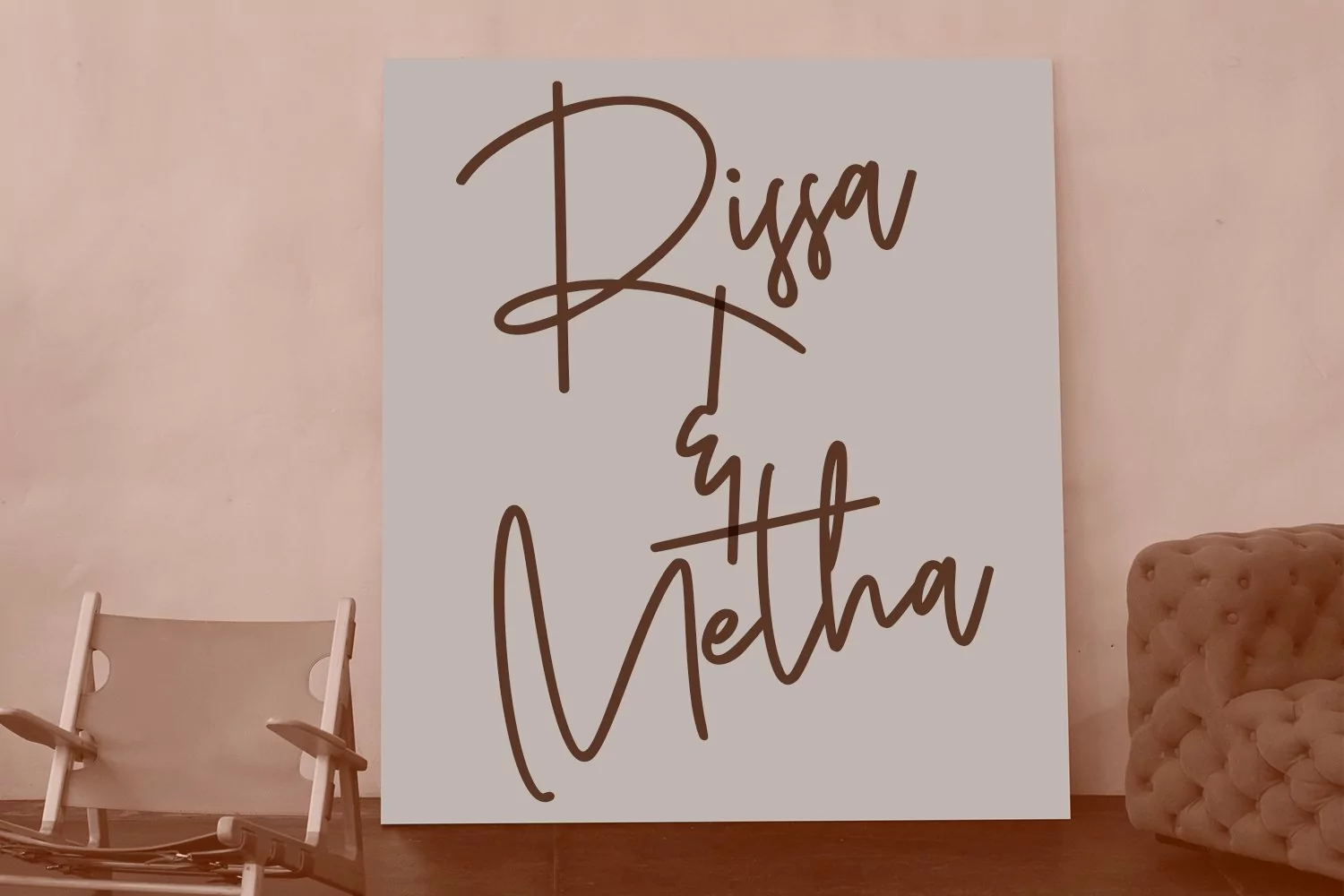
Granite Bay is a Casual script font. With bold mono0line stroke, slant and fun character with a bit of ligatures. To give you an extra creative work. Granite Bay font support multilingual more than 100+ language. This font is good for logo design, Social media, Movie Titles, Books Titles, a short text even a long text letter and good for your secondary text font with sans or serif. Make a stunning work with Granite Bay font.